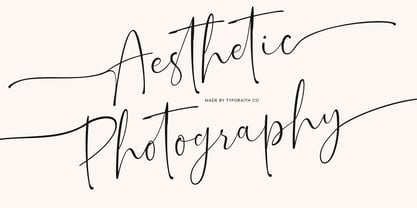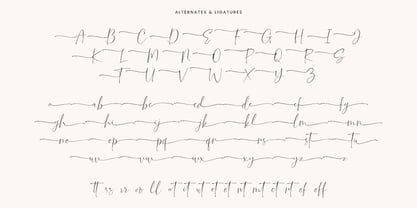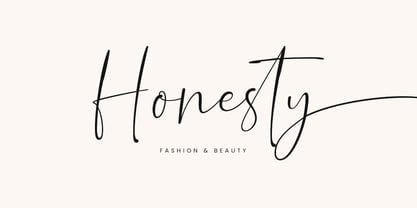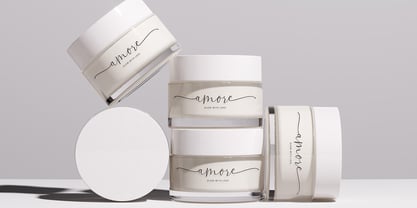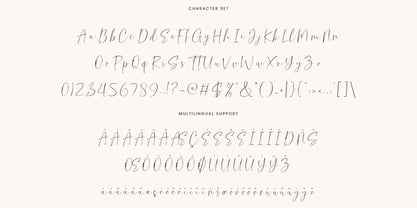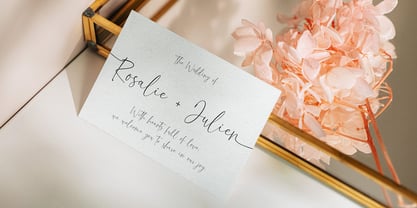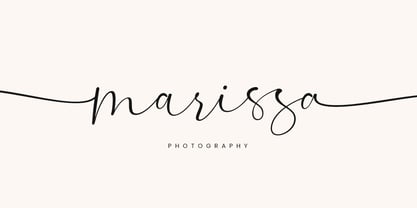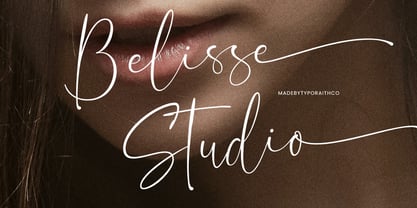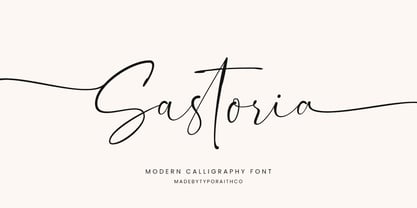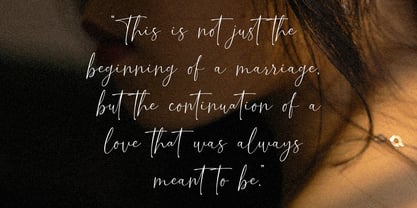
Sastoria
The Sastoria Font Family was designed by Rendy Riyananda and published by Typoraith Co. Sastoria contains 1 styles. More about this family
Sastoria is a refined modern calligraphy font that blends elegance with a natural handwritten flow. Designed with graceful strokes and stylish curves, this font brings a sophisticated yet effortless feel to your creative projects. Perfect for those who love a minimalist aesthetic with a touch of luxury.
With its smooth lines and balanced letterforms, Sastoria is ideal for branding, wedding designs, and high-end visual identities. Each character is carefully crafted to ensure readability while maintaining an artistic and expressive look.
- Uppercase & lowercase letters
- Numerals & punctuation
- Stylistic alternates & ligatures
- Multilingual support
- Wedding invitations & stationery
- Logo design & branding
- Social media graphics
- Packaging & labels
- Quotes, posters & editorial design
Sastoria is designed to elevate your work with a timeless and feminine touch—whether you're creating romantic invitations or modern brand visuals.